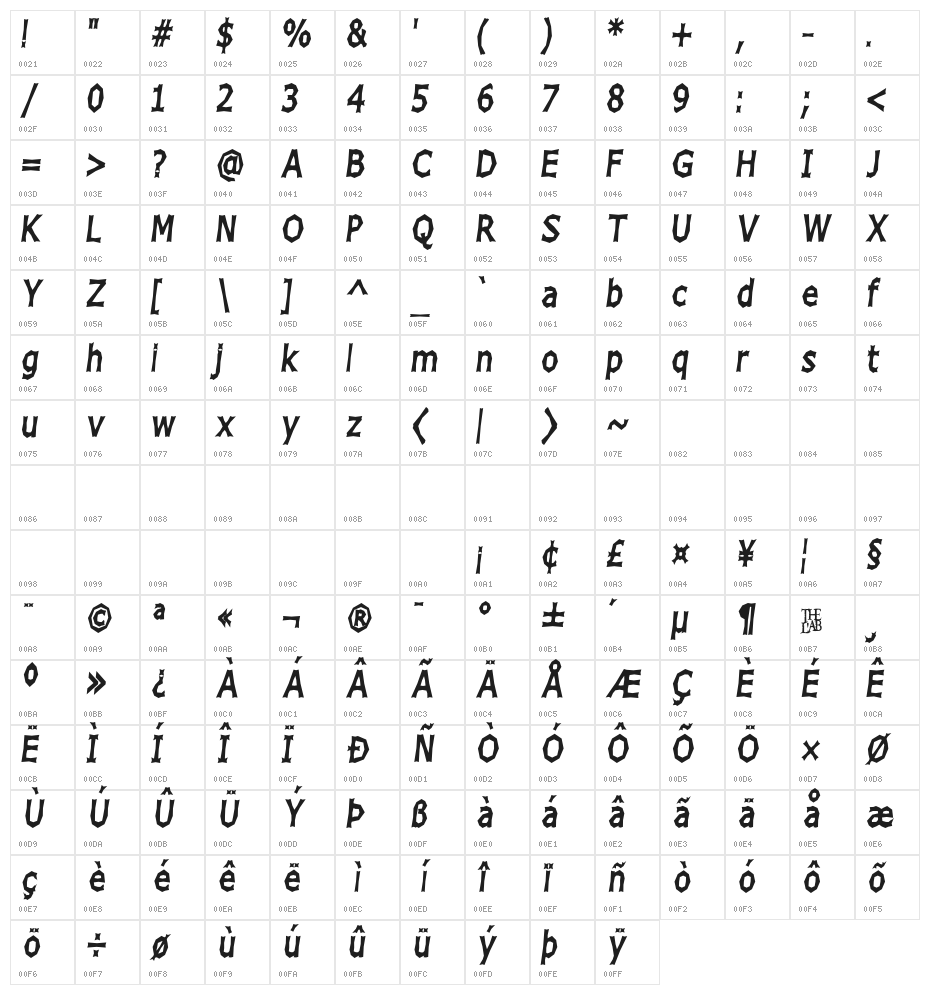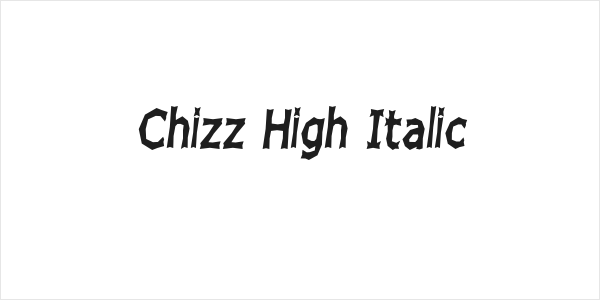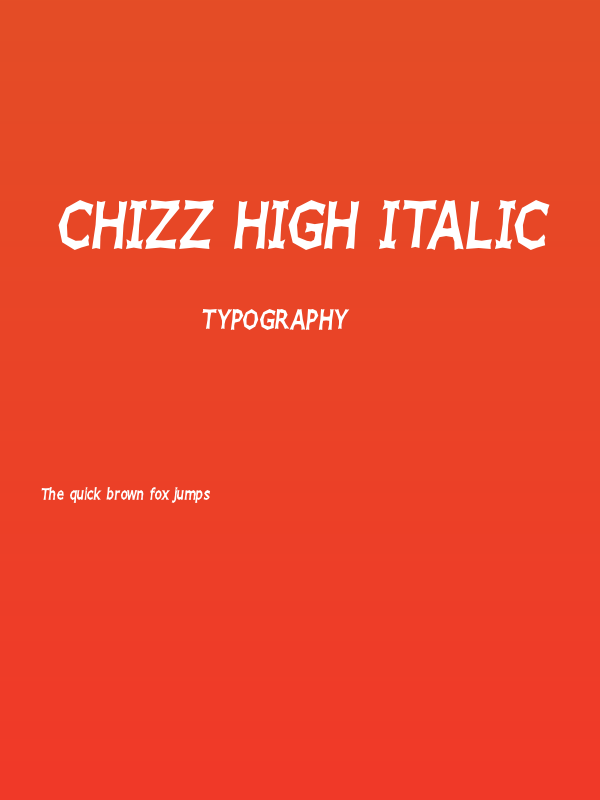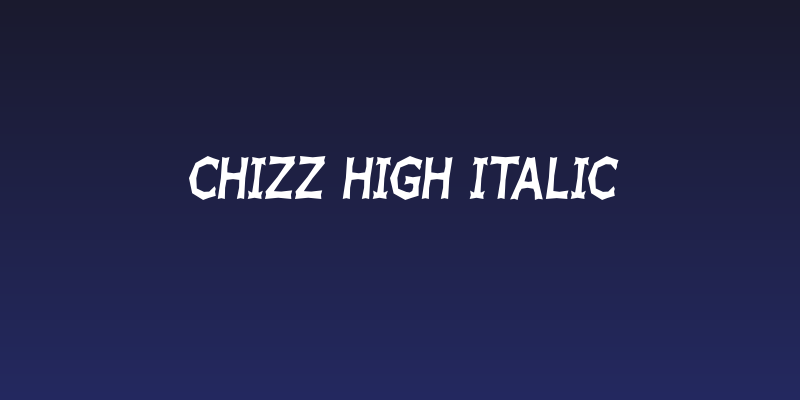
Chizz High Italic Font
Chizz High Italic Description
This font features a bold and dynamic style with sharp, angular edges and a slightly distorted appearance. The characters are italicized, giving them a sense of motion and energy. The uppercase and lowercase letters maintain a consistent design, with exaggerated serifs and a rugged texture that adds a unique flair. The numbers and special characters follow the same aesthetic, ensuring a cohesive look across all text elements. The font's distinctive style makes it stand out, ideal for projects that require a bold statement.